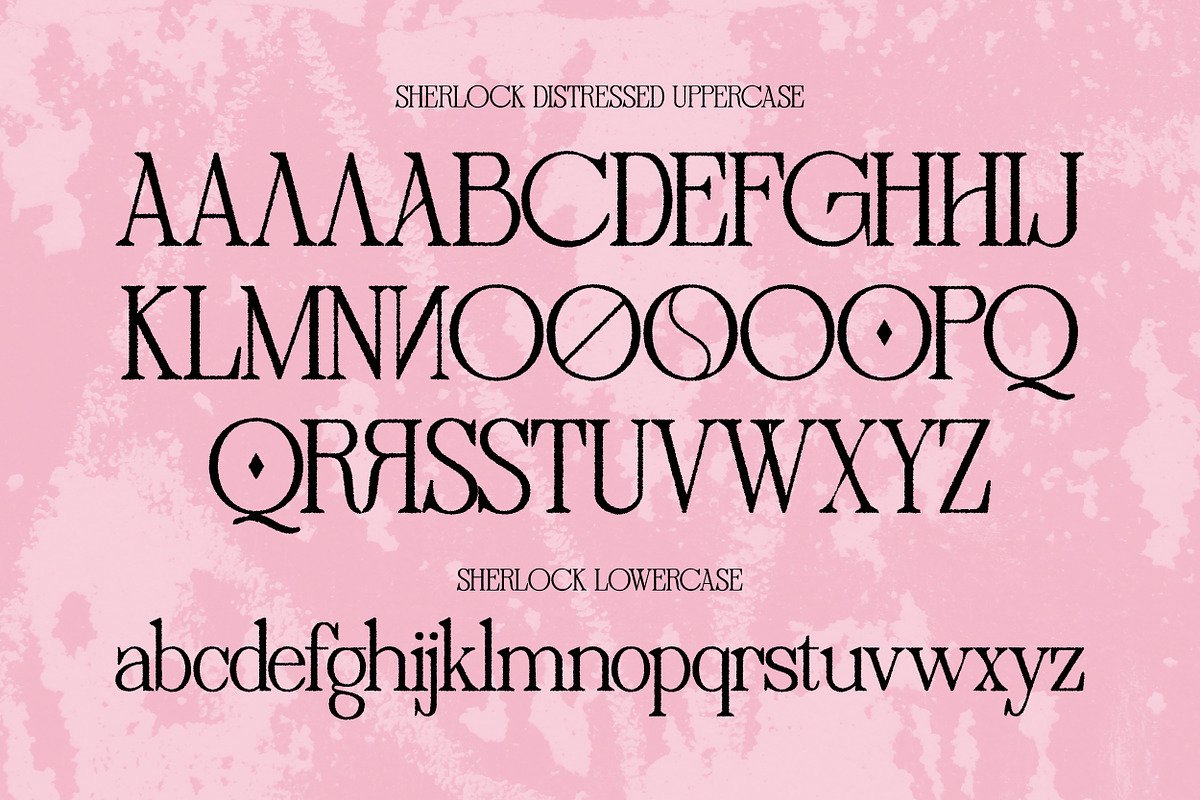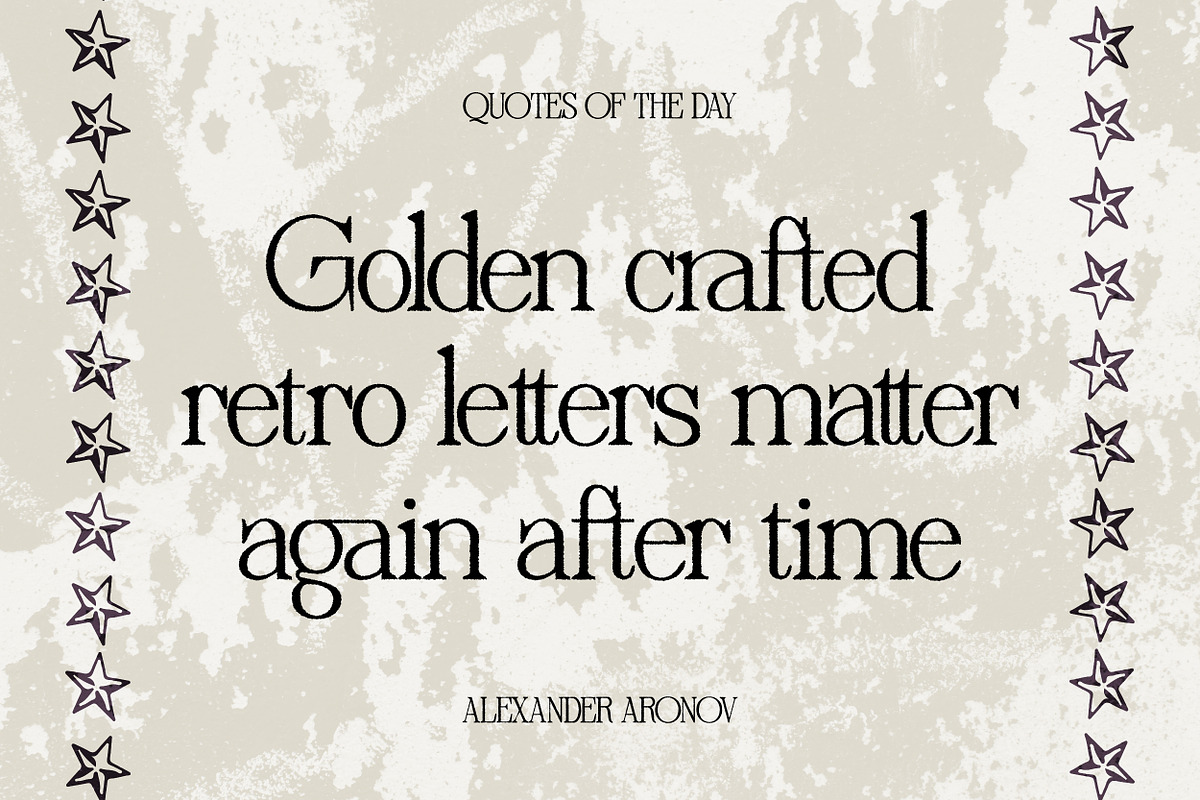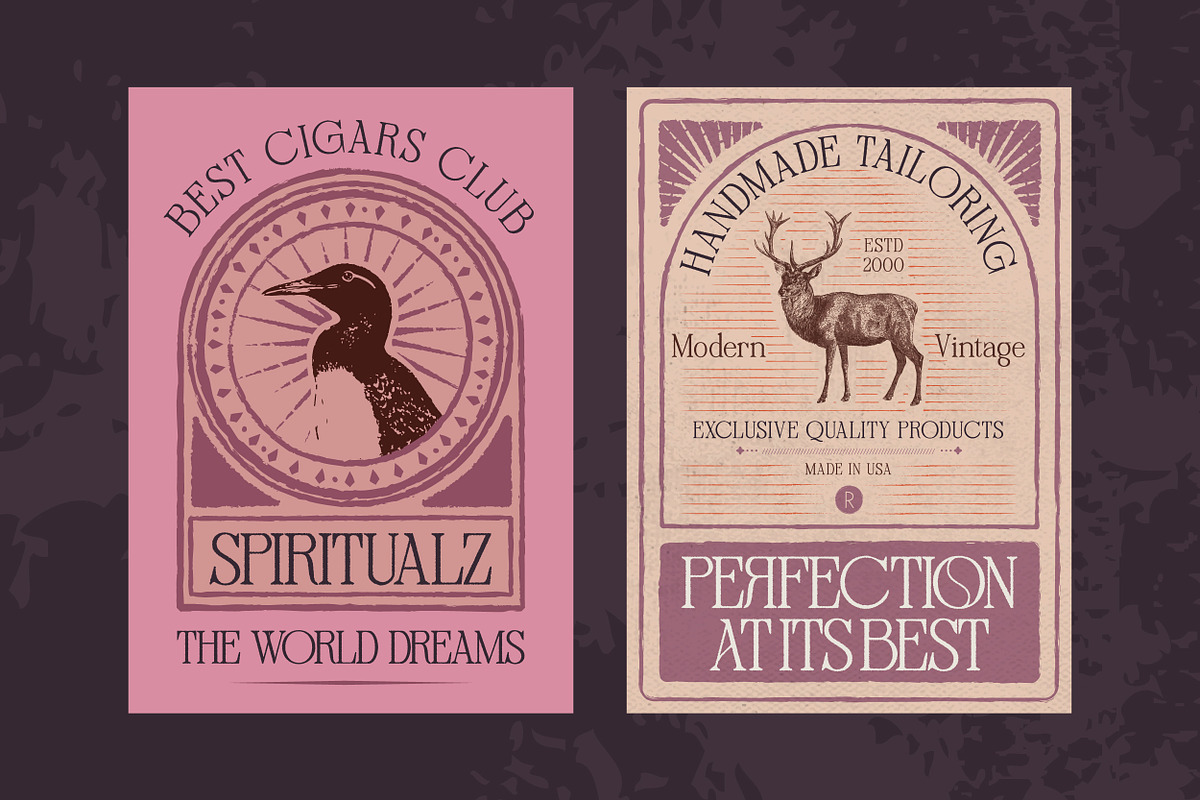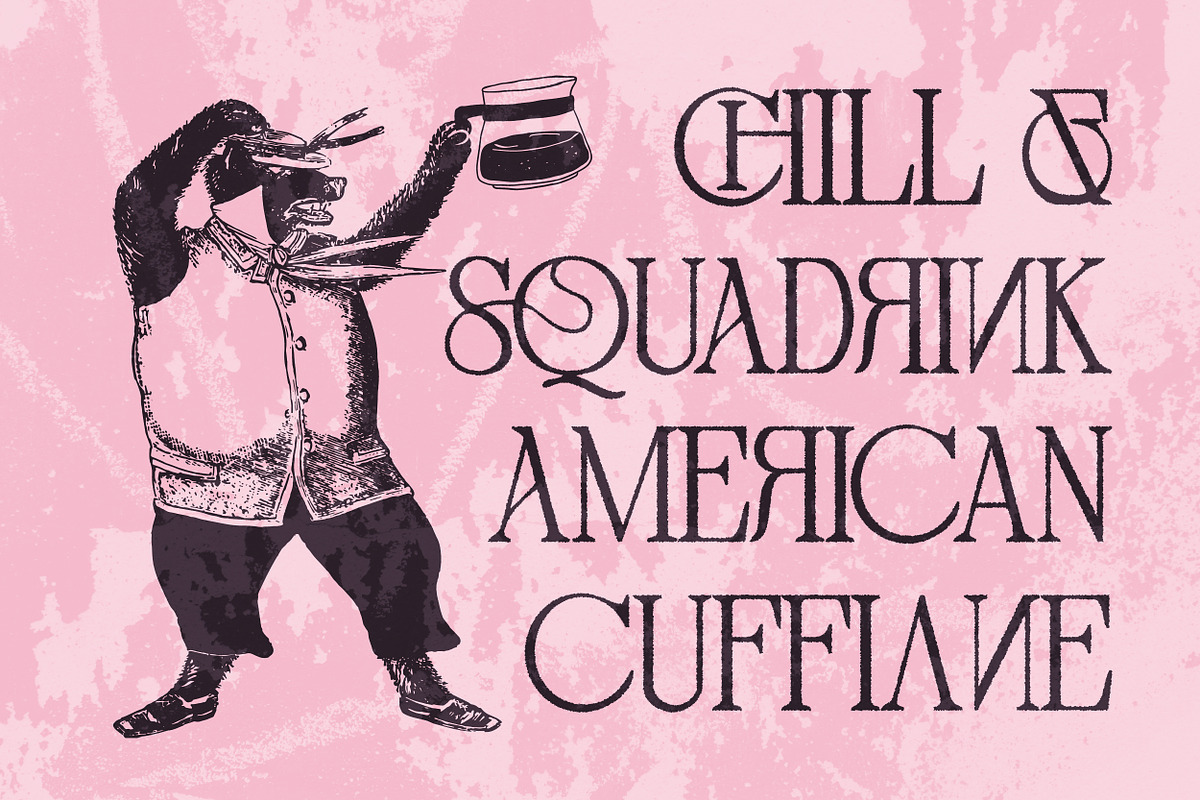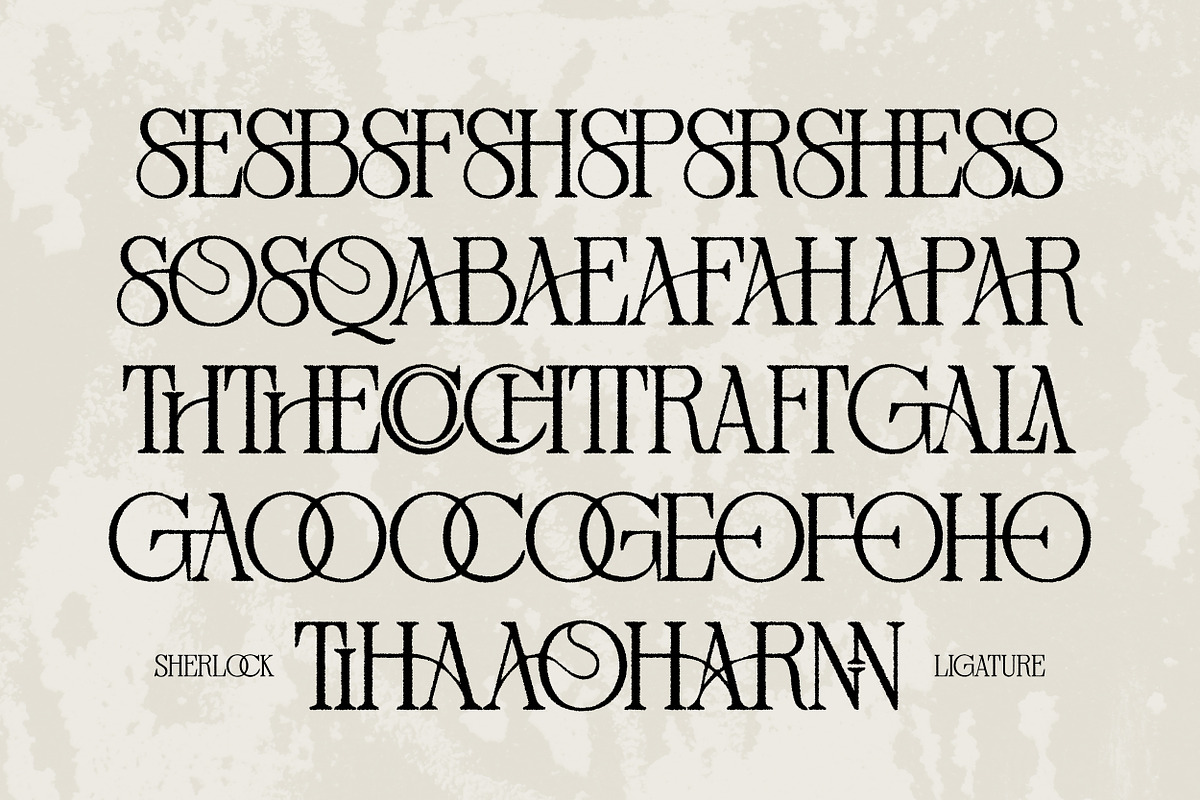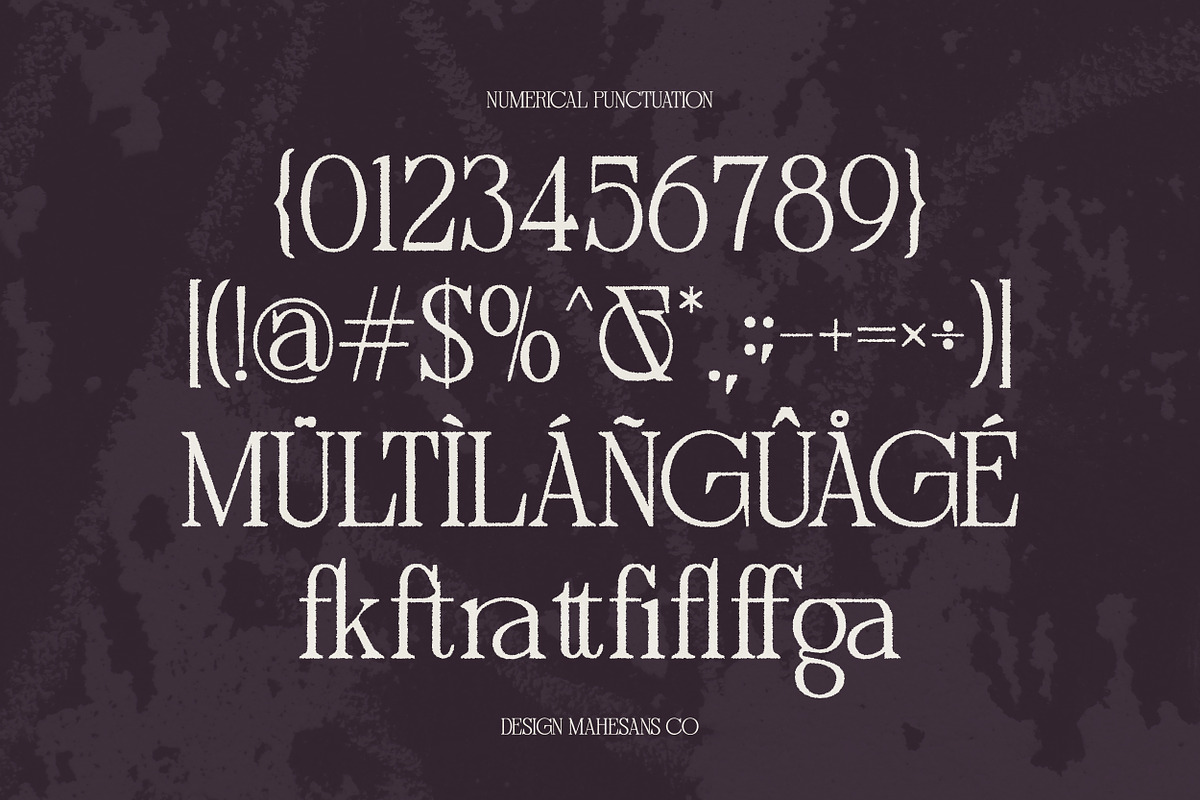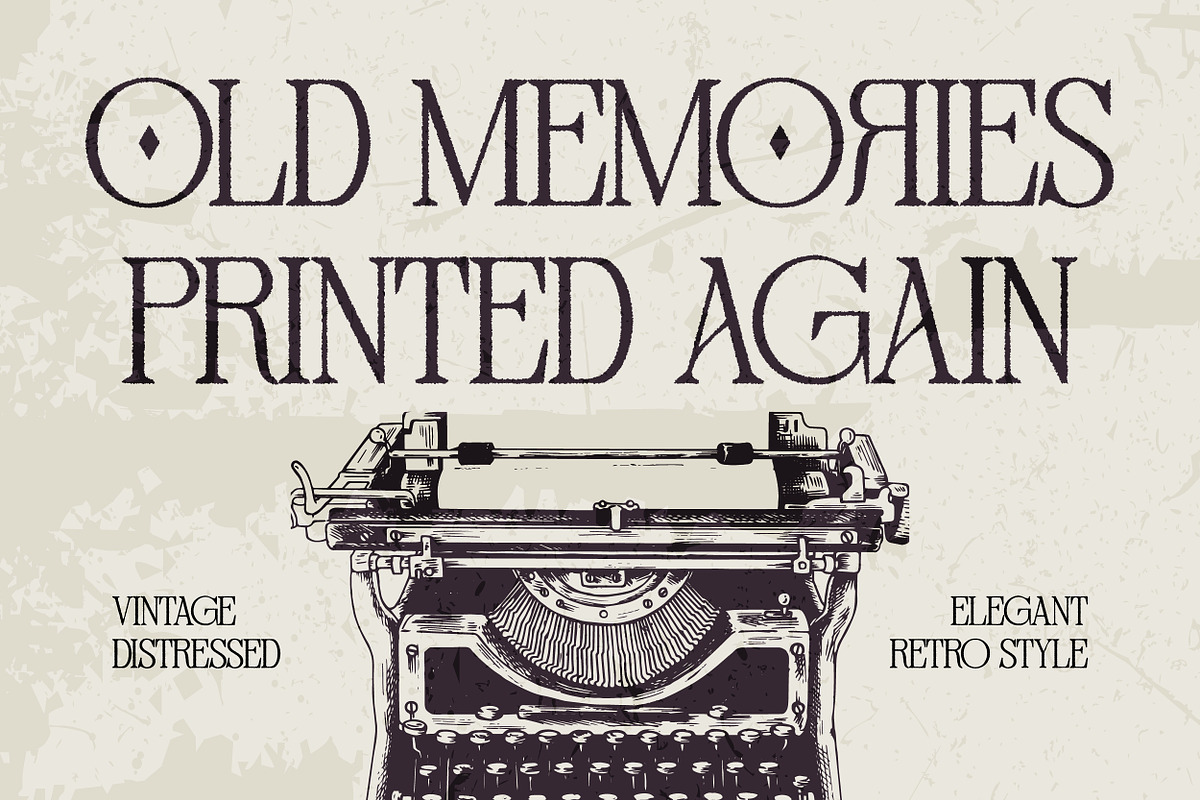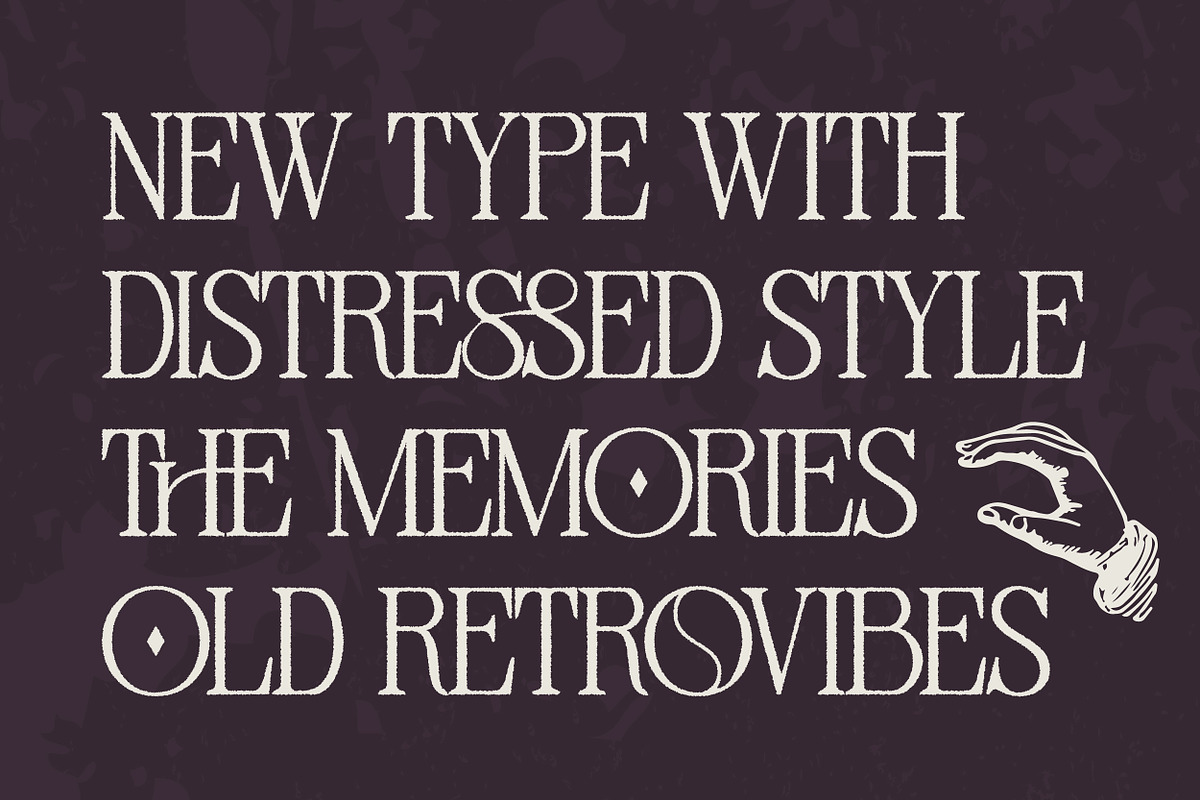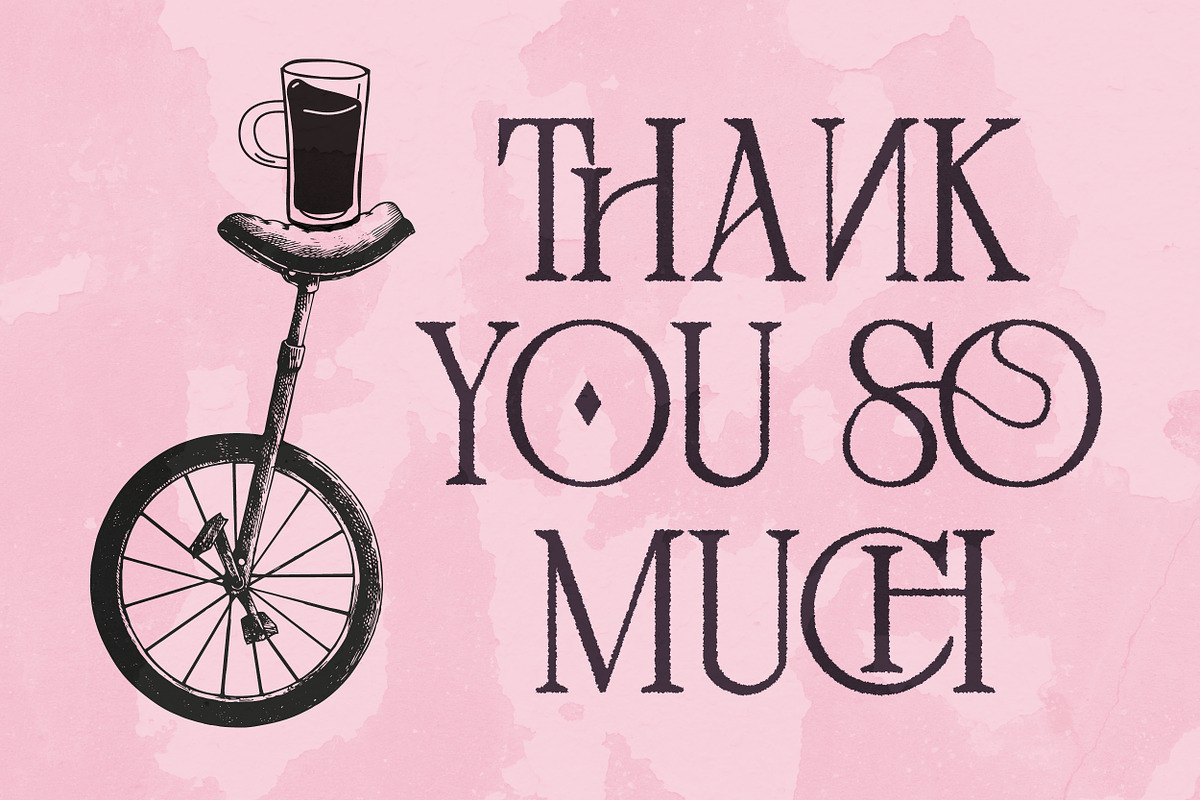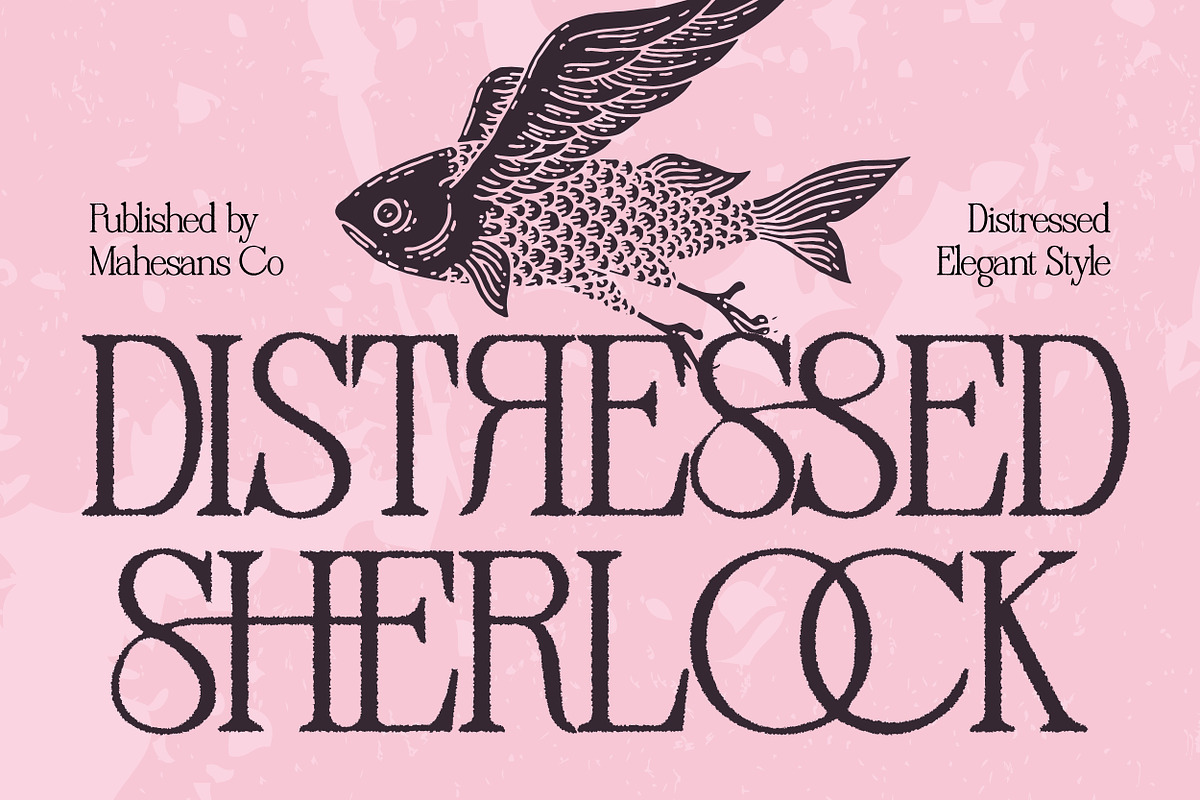
Distressed Sherlock – Elegant Serif
Distressed Sherlock is an elegant serif font that combines classic letterforms with a beautiful distressed texture, creating a timeless and sophisticated look. This font is designed to bring a vintage yet luxurious feel to your designs while still maintaining clarity and readability.
With its unique ligatures and stylistic alternates, Distressed Sherlock allows you to create elegant typography with a custom-made feel. The distressed details add character and texture, making it perfect for projects that need a classic, editorial, and vintage aesthetic.
This font is perfect for branding, logos, editorial layouts, magazines, packaging, wedding invitations, quotes, posters, book covers, and luxury branding projects.
- Multilanguage